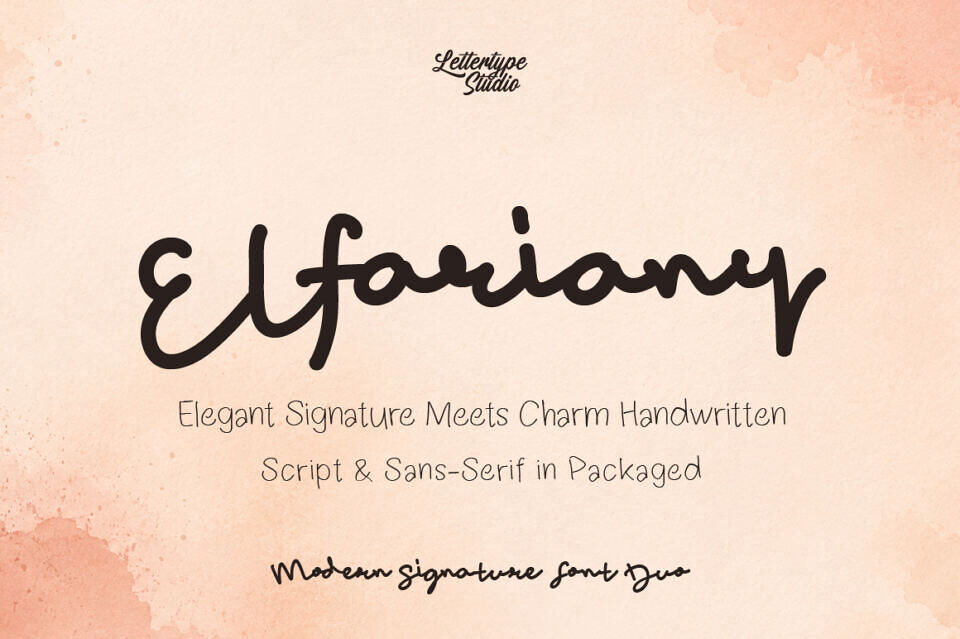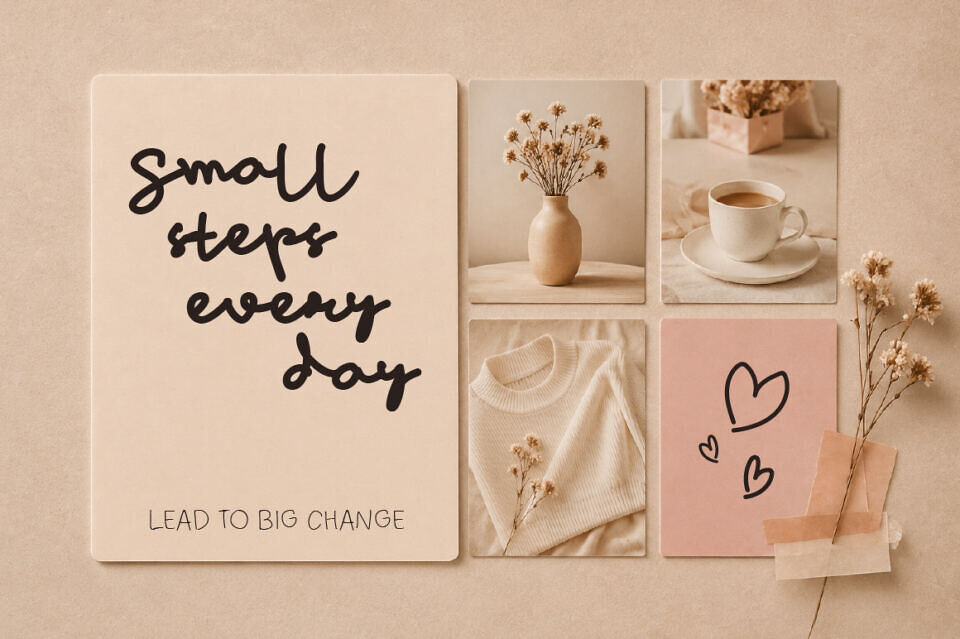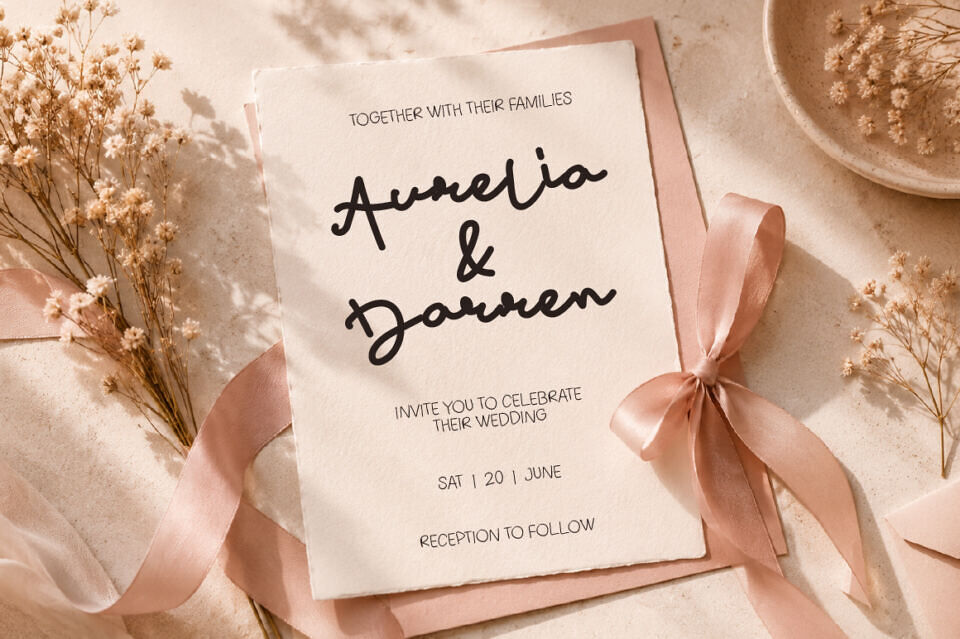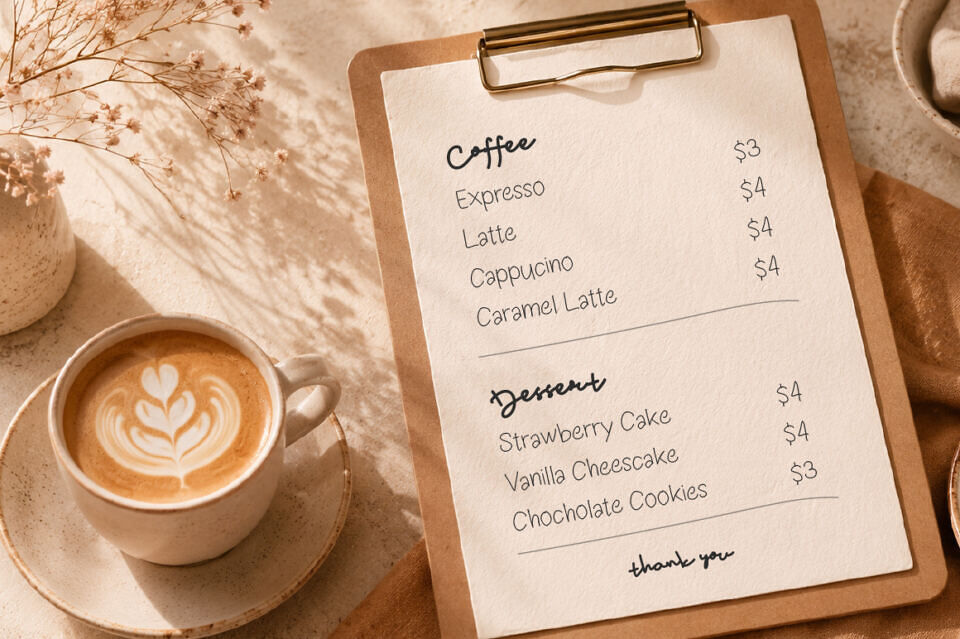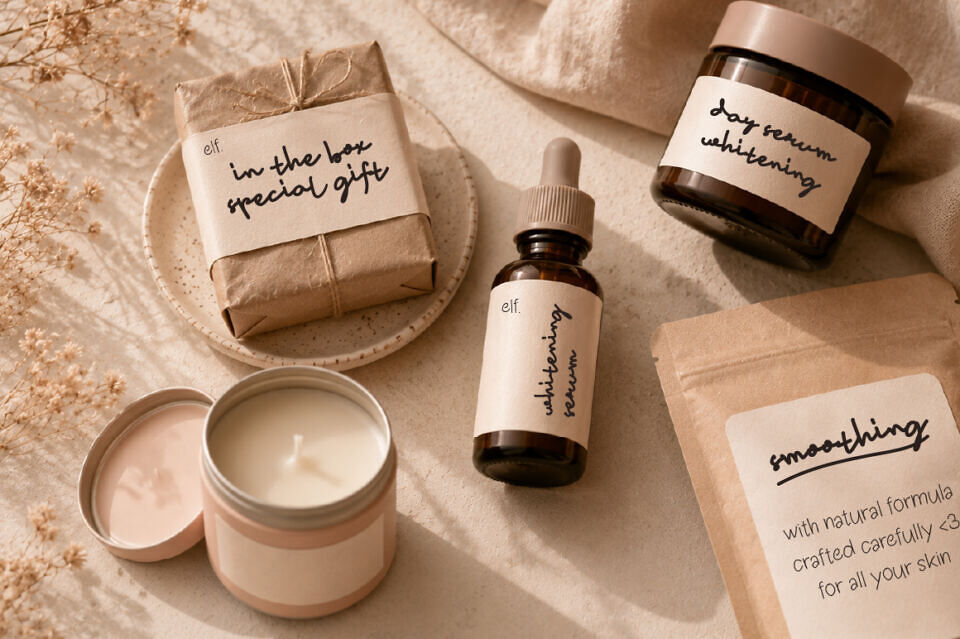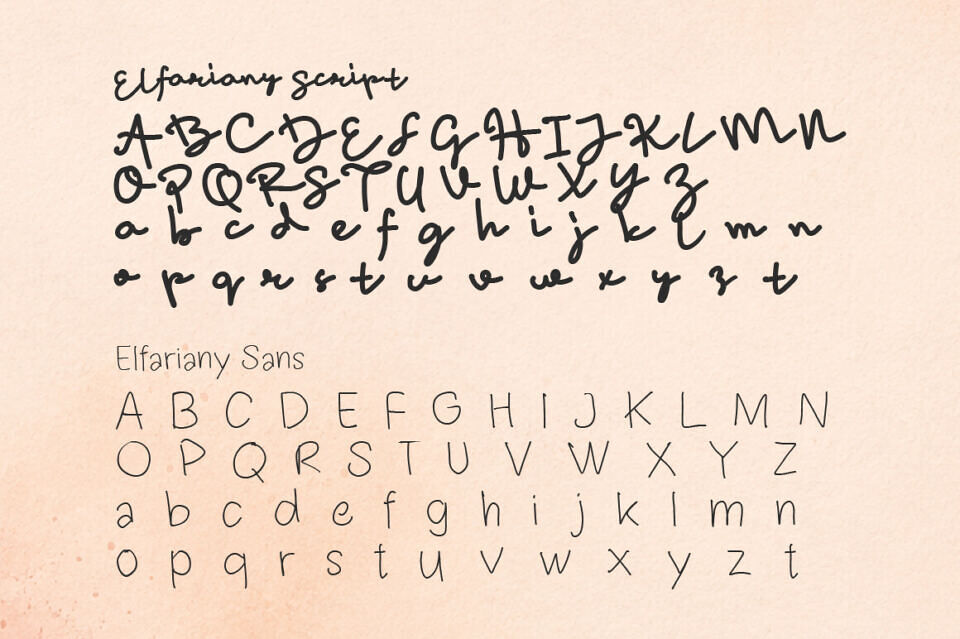
Elfariany is a modern handwritten font duo featuring an expressive signature script paired with a clean monoline handwritten sans. Designed to create warm, stylish, and personal branding visuals, this duo delivers the perfect balance between elegance and casual authenticity.
The script style flows naturally with bold handwritten energy, while the sans companion keeps layouts clean, friendly, and highly usable across branding, packaging, social media, wedding design, and lifestyle content.